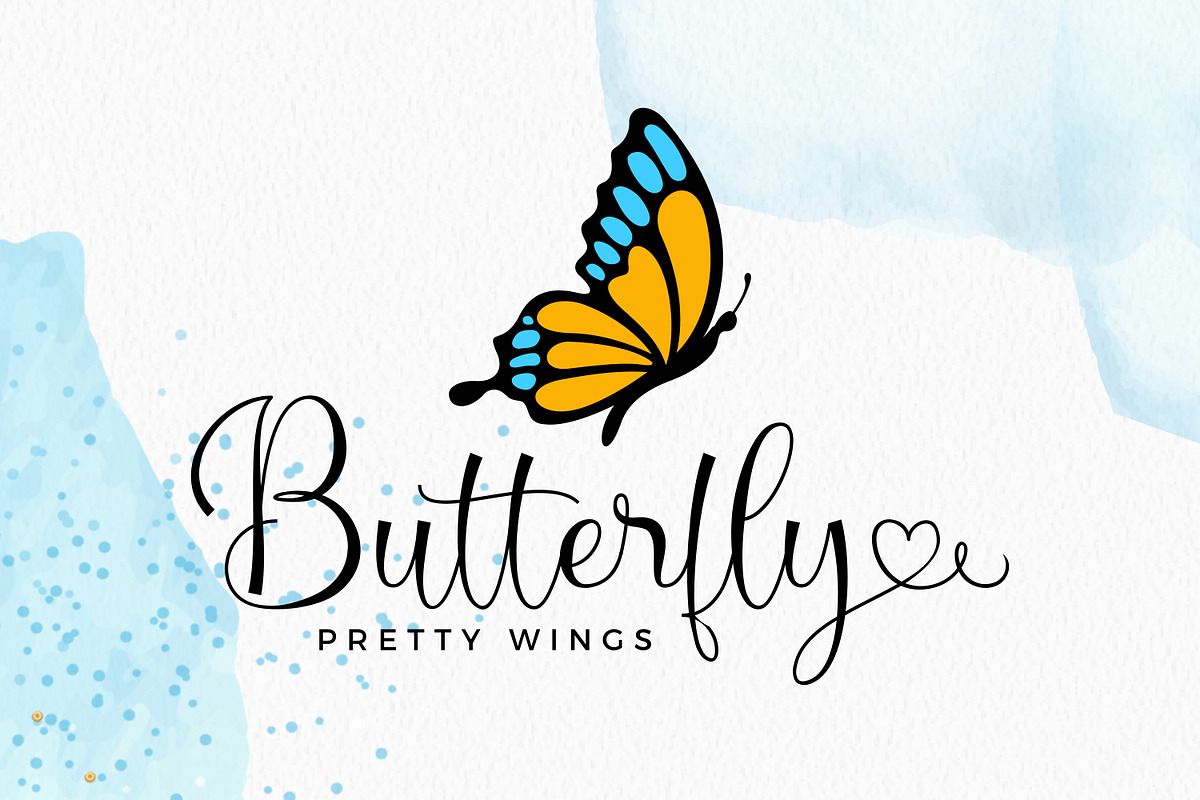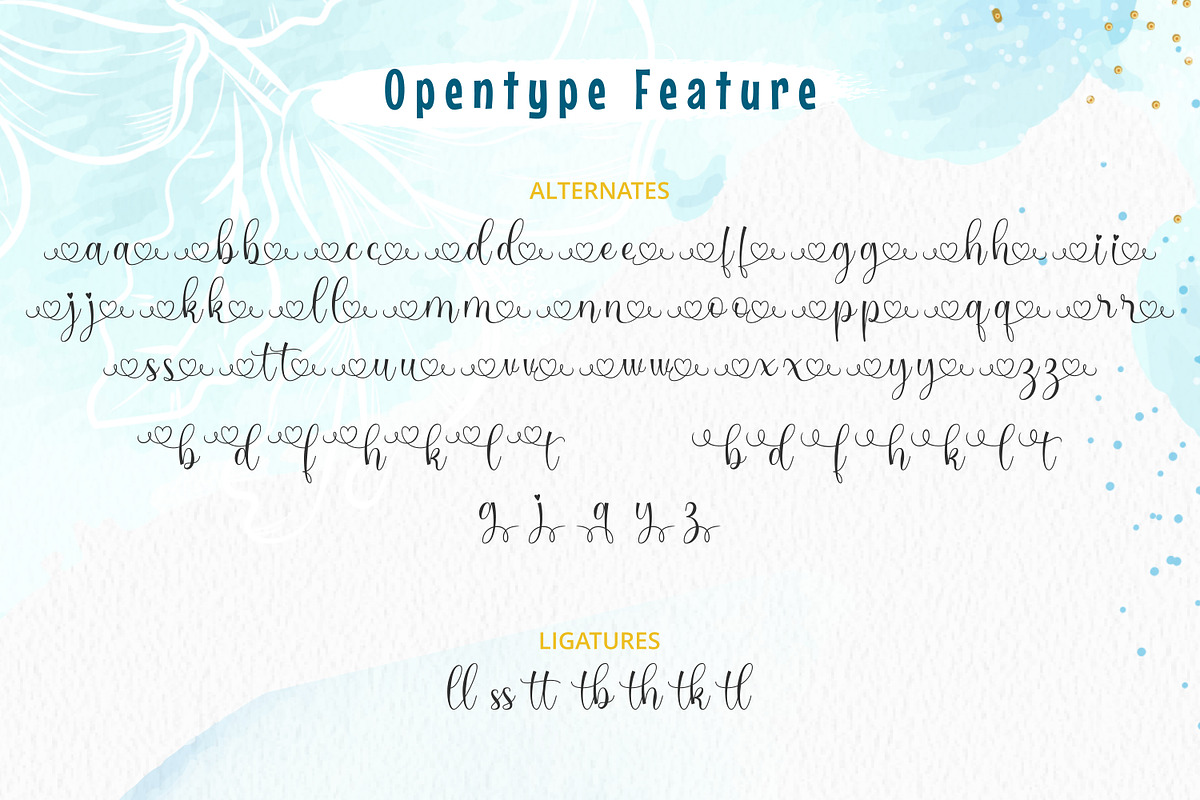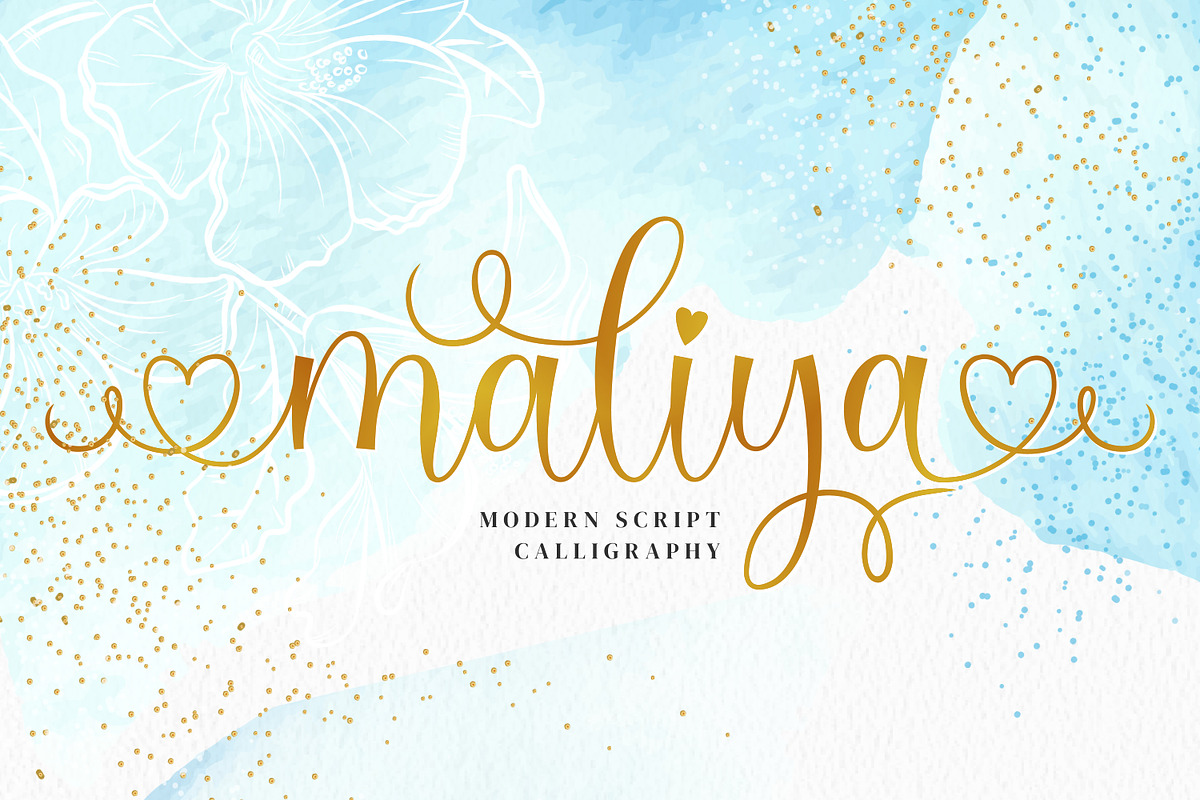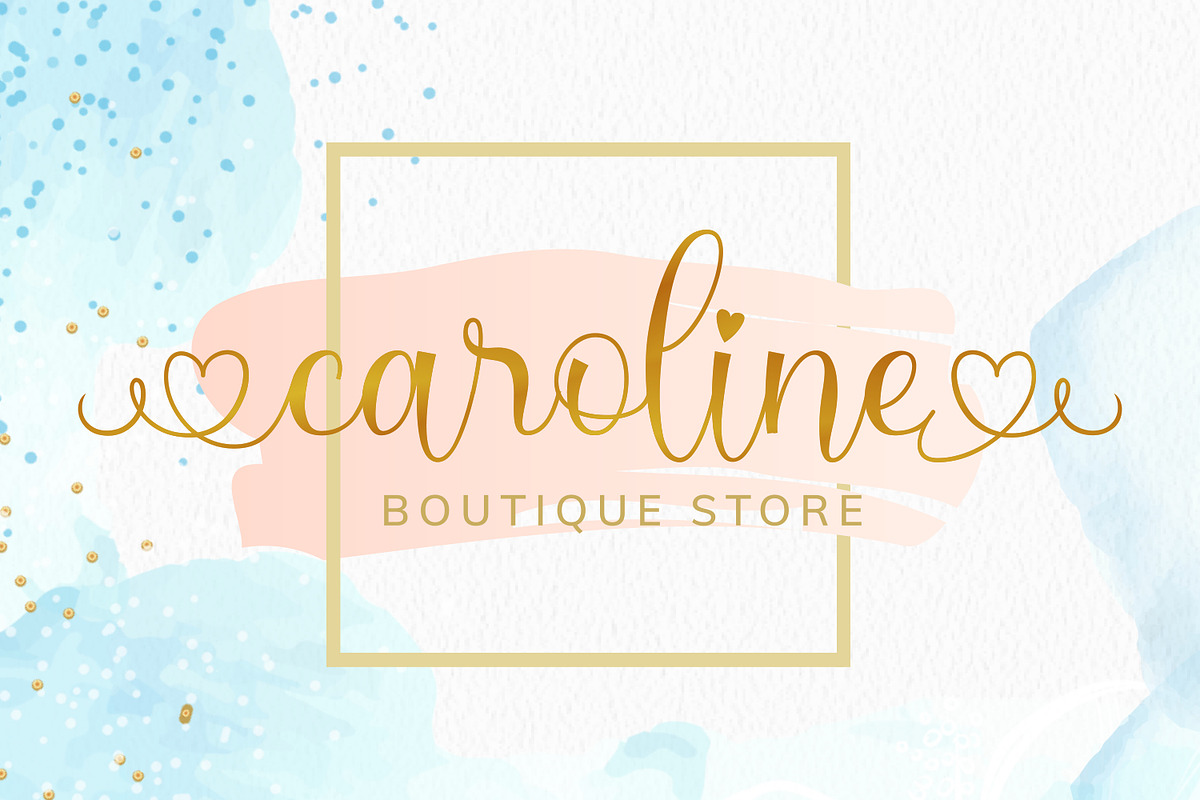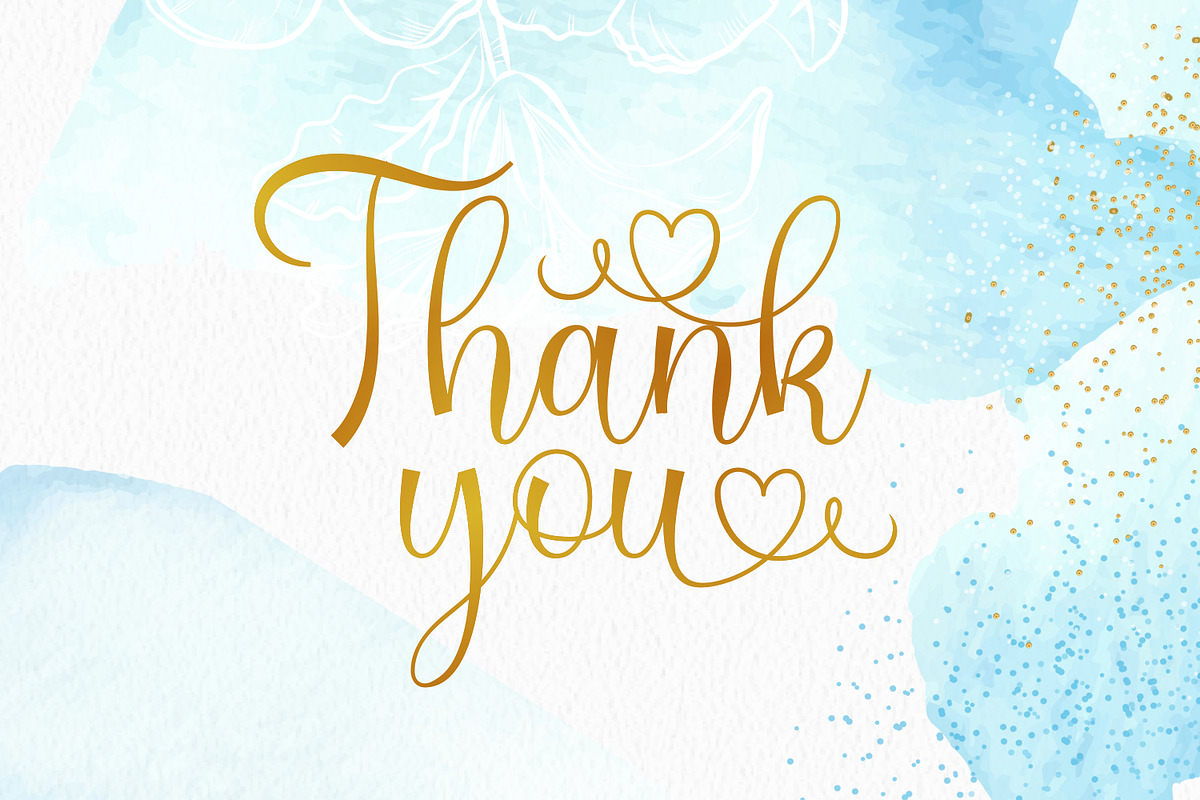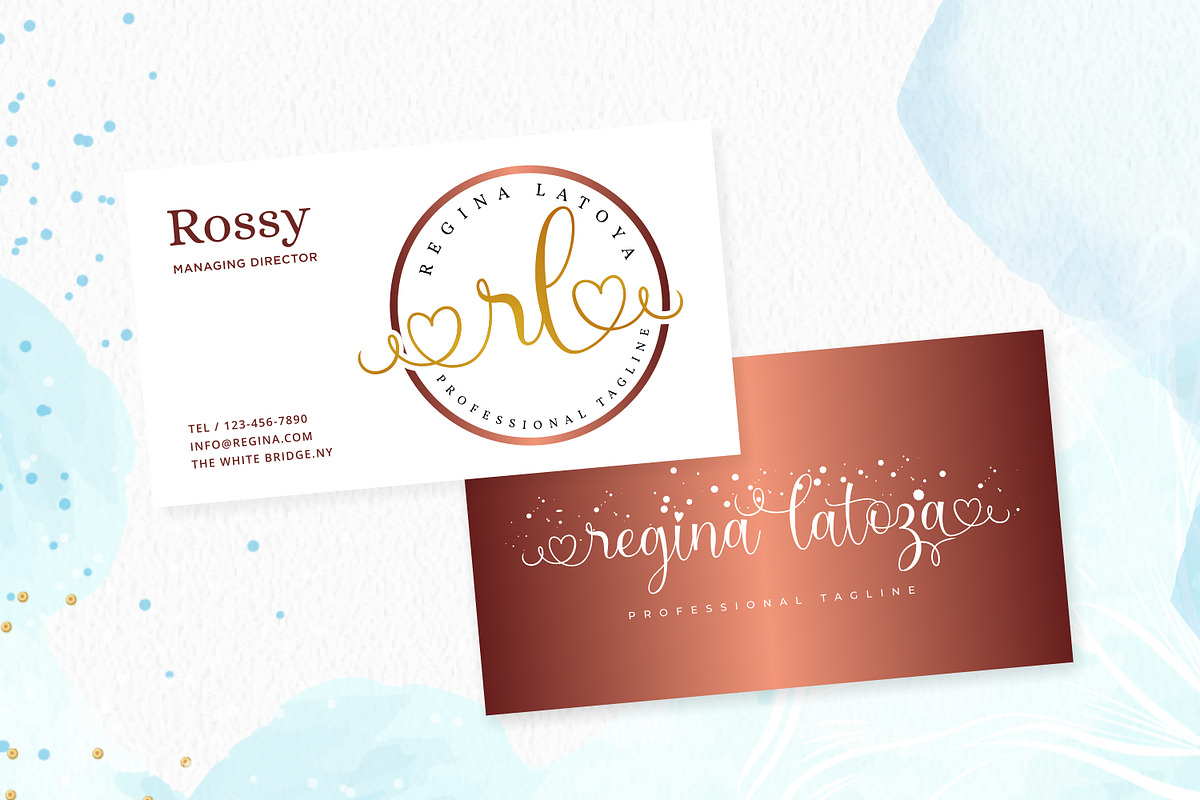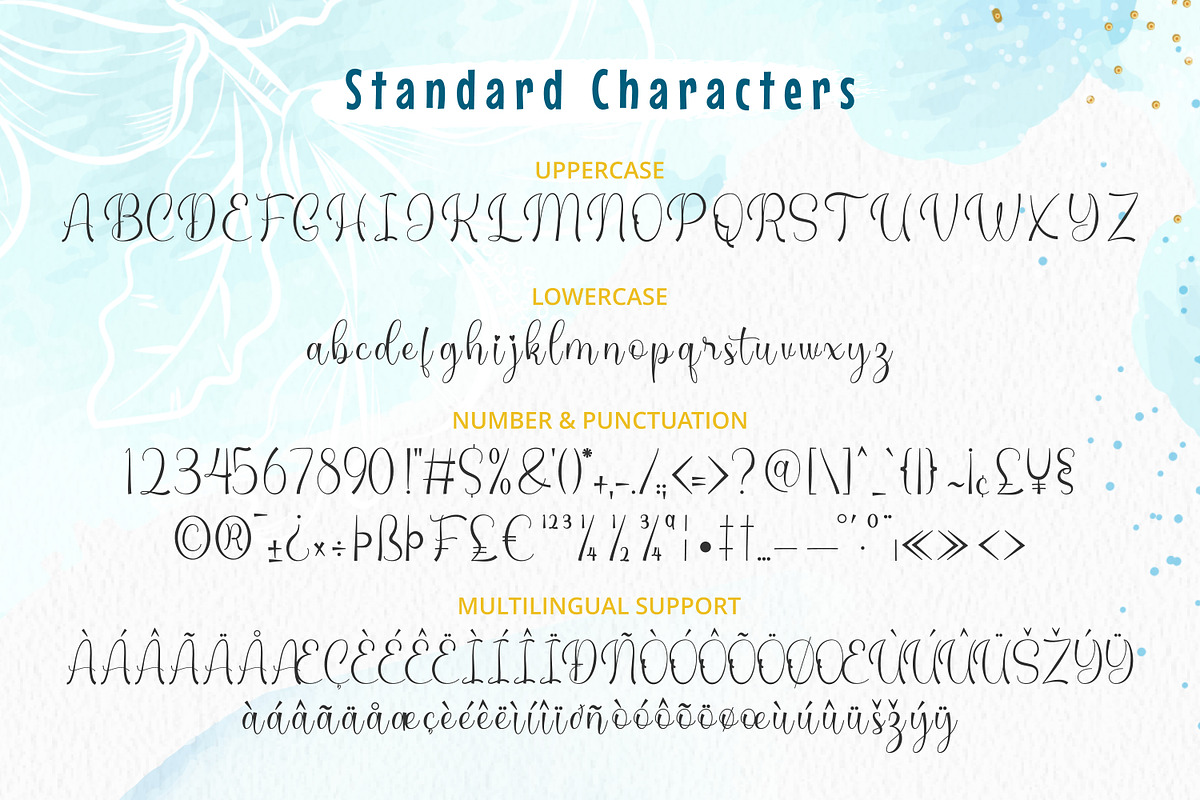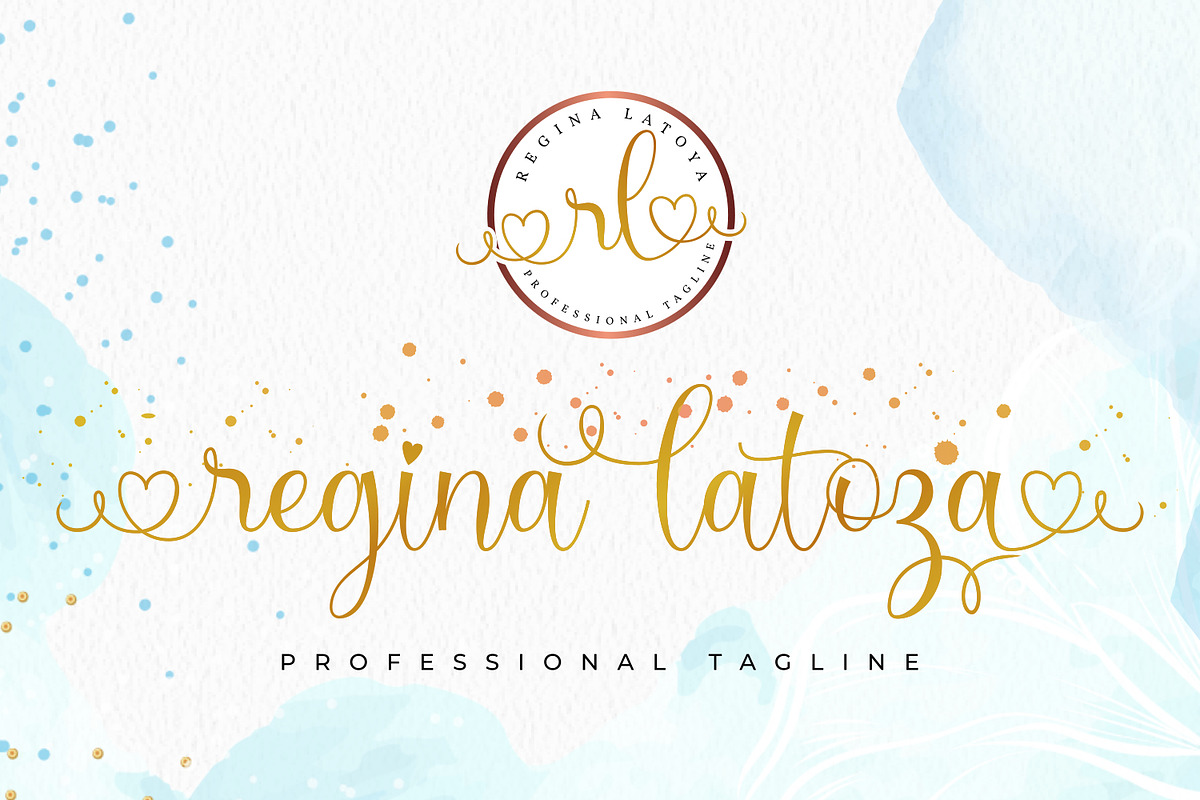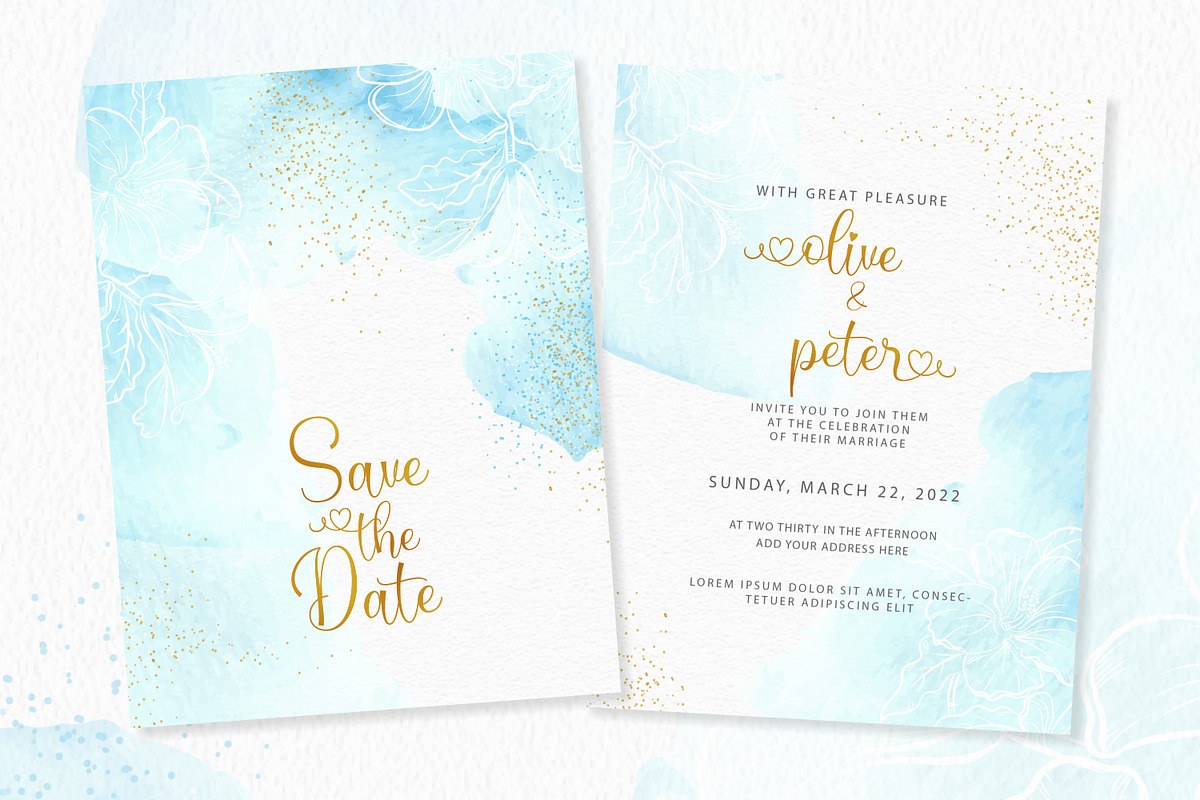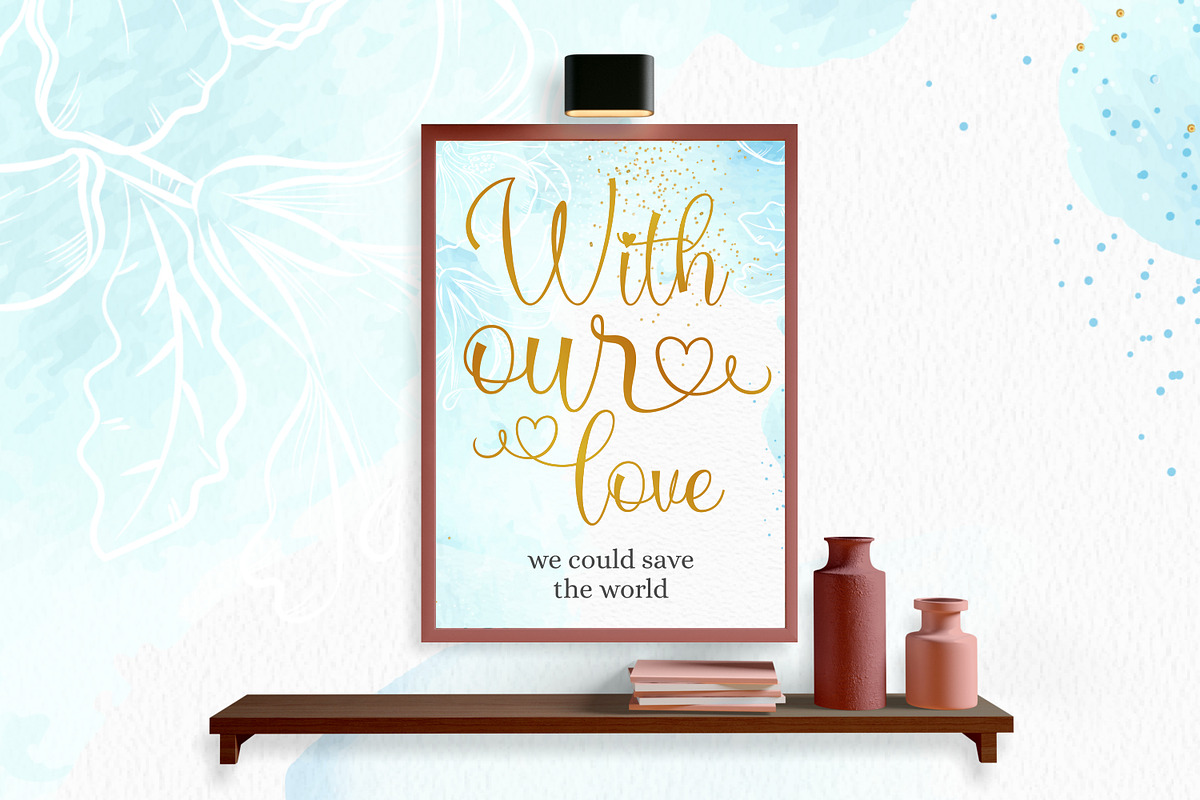
Maliya
Maliya is an elegant and flowing handwritten font. It features beautiful swashes that will add a romantic touch to your designs. Fall in love with its authentic feel and use it to create gorgeous wedding invitations, beautiful stationary art, eye-catching social media posts, and cute greeting cards.
Feature:
- Numbers and punctuation marks